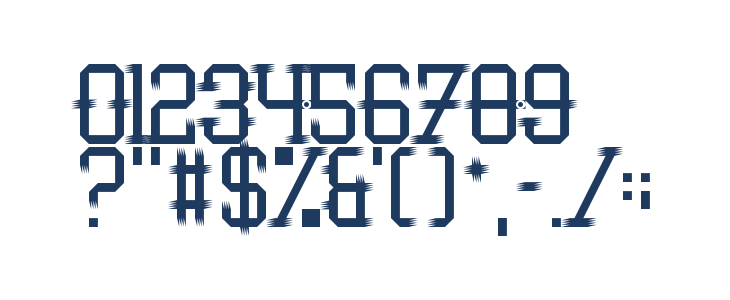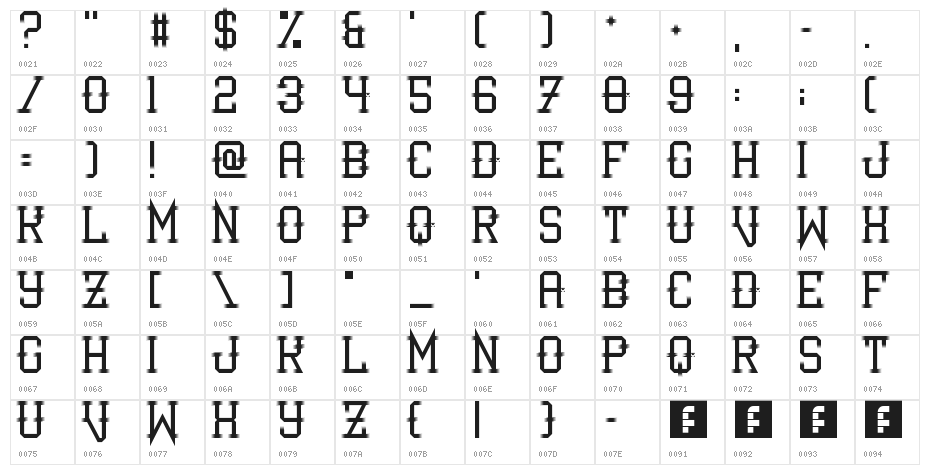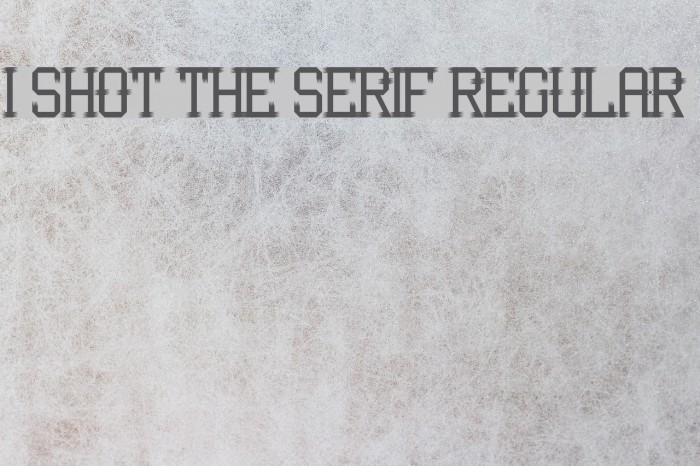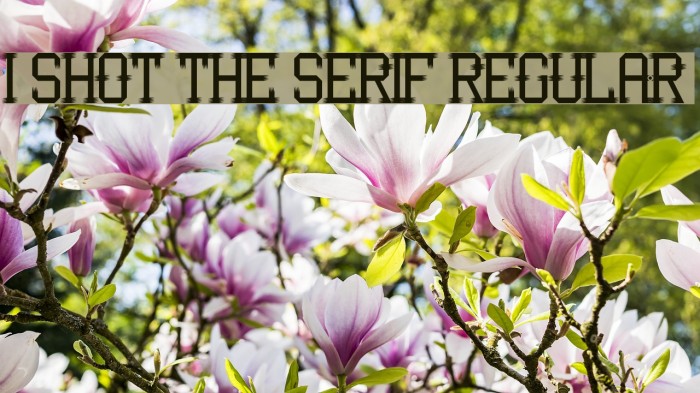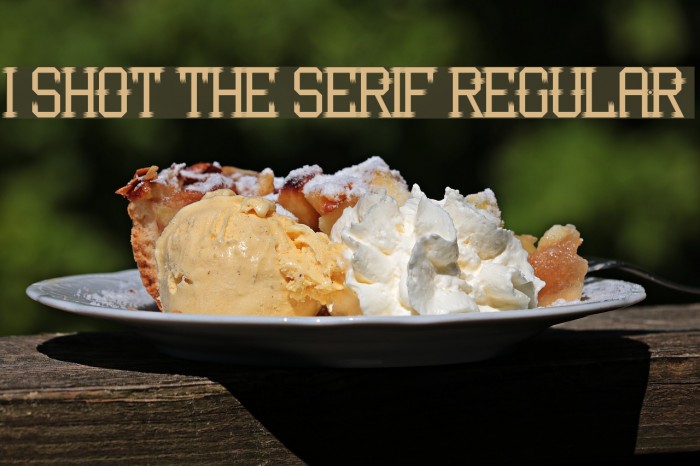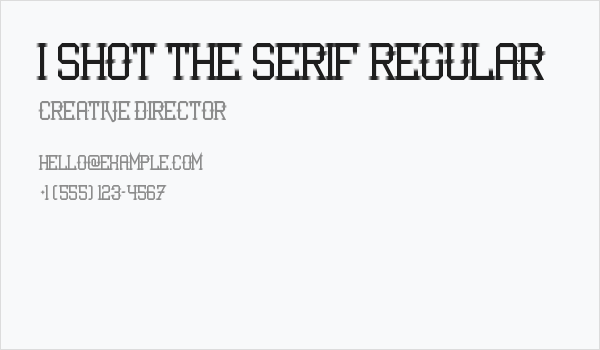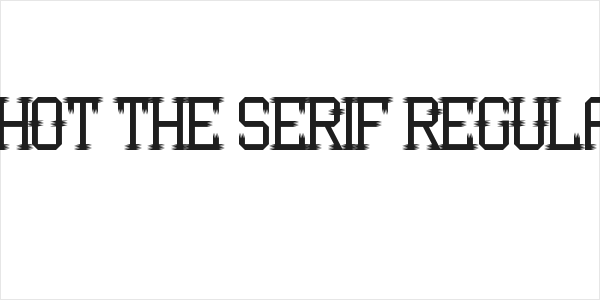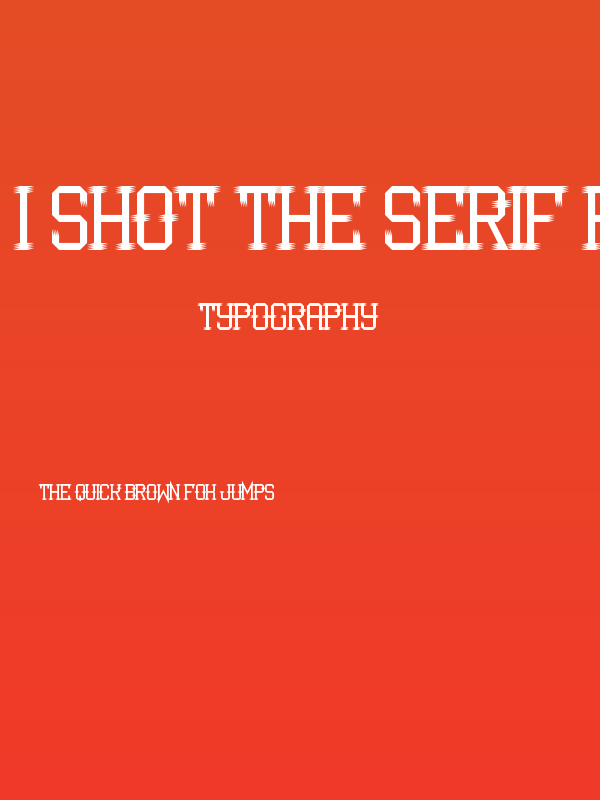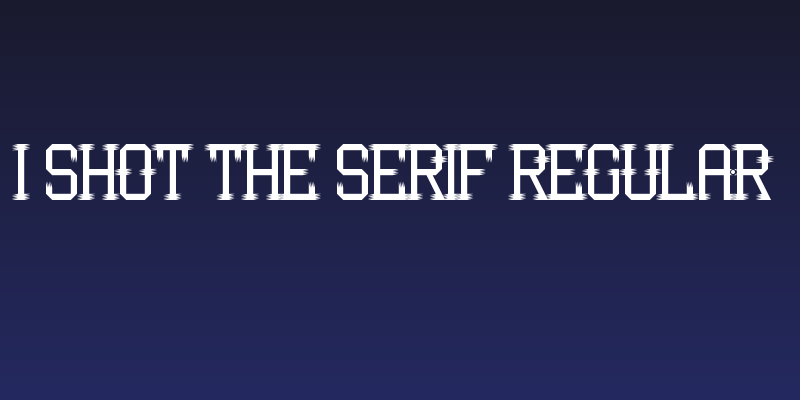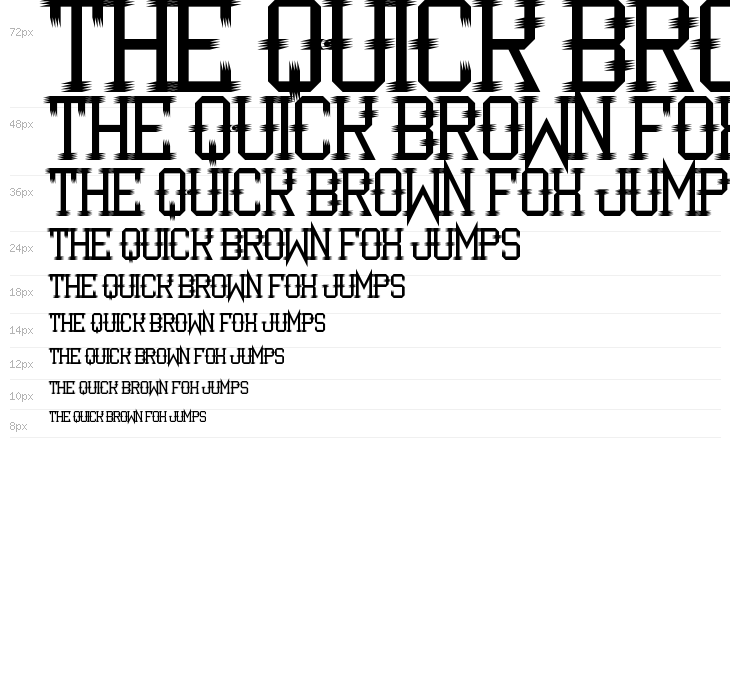
I Shot the Serif Regular Font
I Shot the Serif Regular Description
This font features a bold and striking design with a unique, jagged appearance. The characters are constructed with sharp, angular lines and a distressed effect that gives them a dynamic and edgy look. The uppercase letters are particularly prominent, with a strong geometric structure that is both modern and eye-catching. The font includes a full set of uppercase and lowercase letters, numbers, and a variety of special characters, making it versatile for different design needs. Its distinctive style makes it ideal for projects that require a bold statement or a creative, unconventional touch.